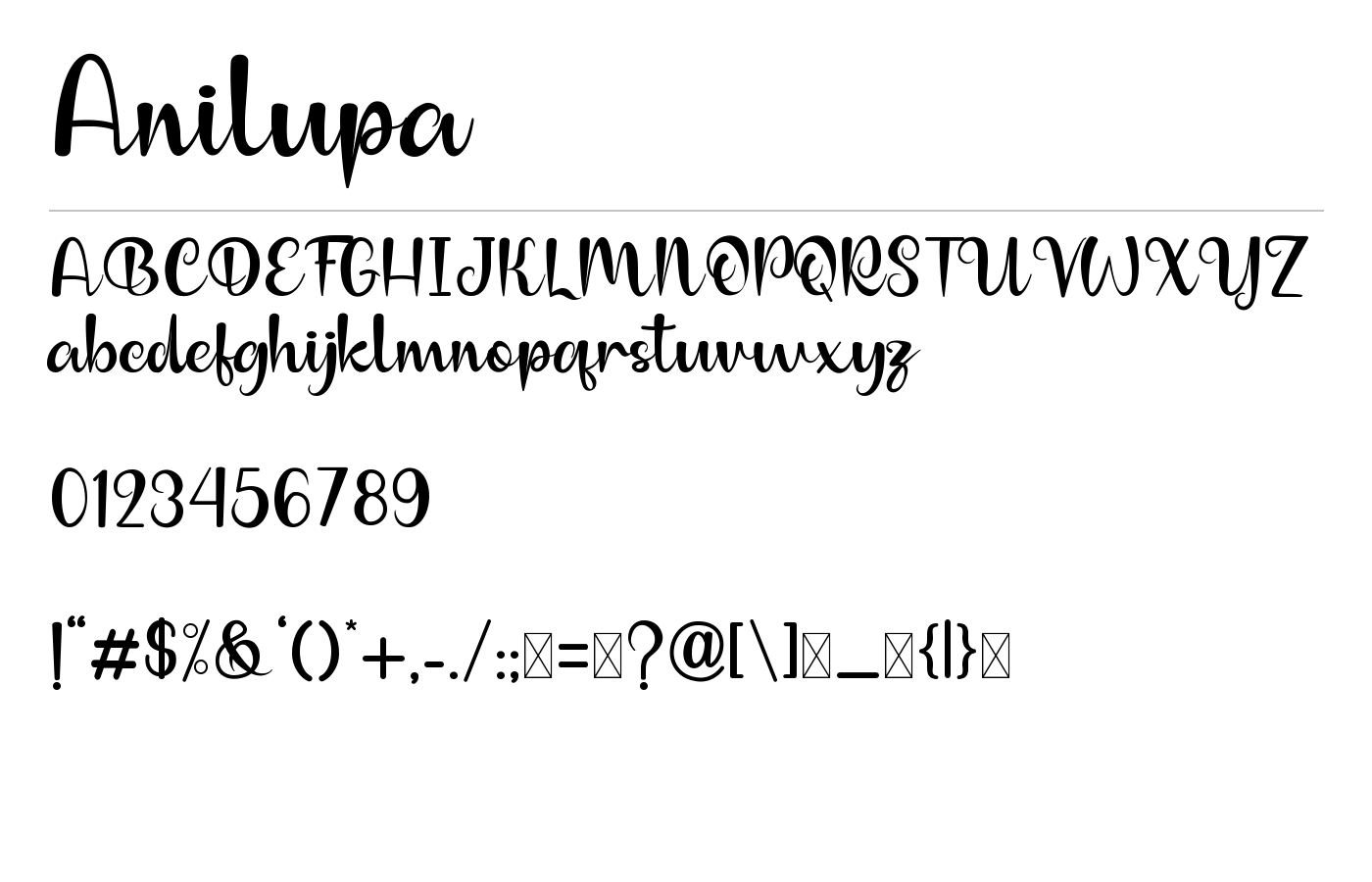
Anilupa is a playful and elegant script font featuring smooth, rounded strokes with moderate contrast and a lively, handwritten feel. Its unique letterforms, including curly capitals and flowing lowercase characters, give it a charming and approachable personality ideal for creative branding, invitations, and feminine or whimsical designs. This font works best in headlines, logos, and decorative text where a friendly yet stylish impression is desired.
Anilupa Font
About Anilupa Font
| Font family | Anilupa Font |
| Designer | eknoji |